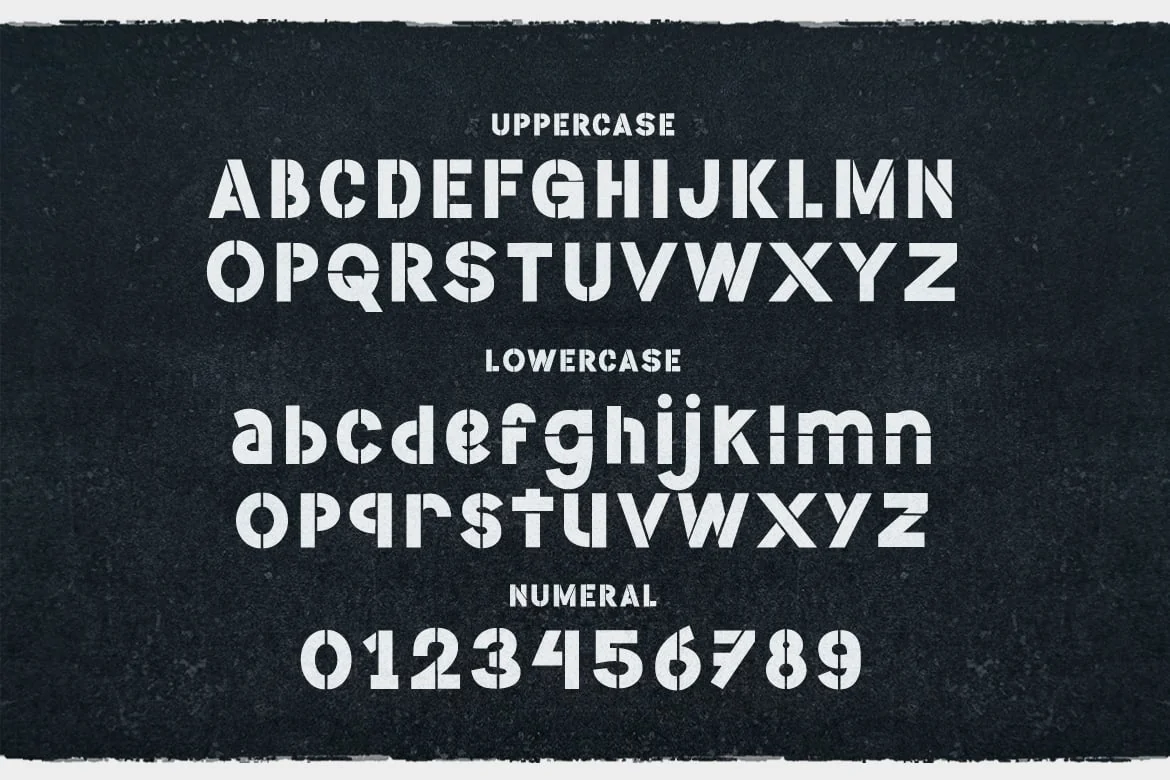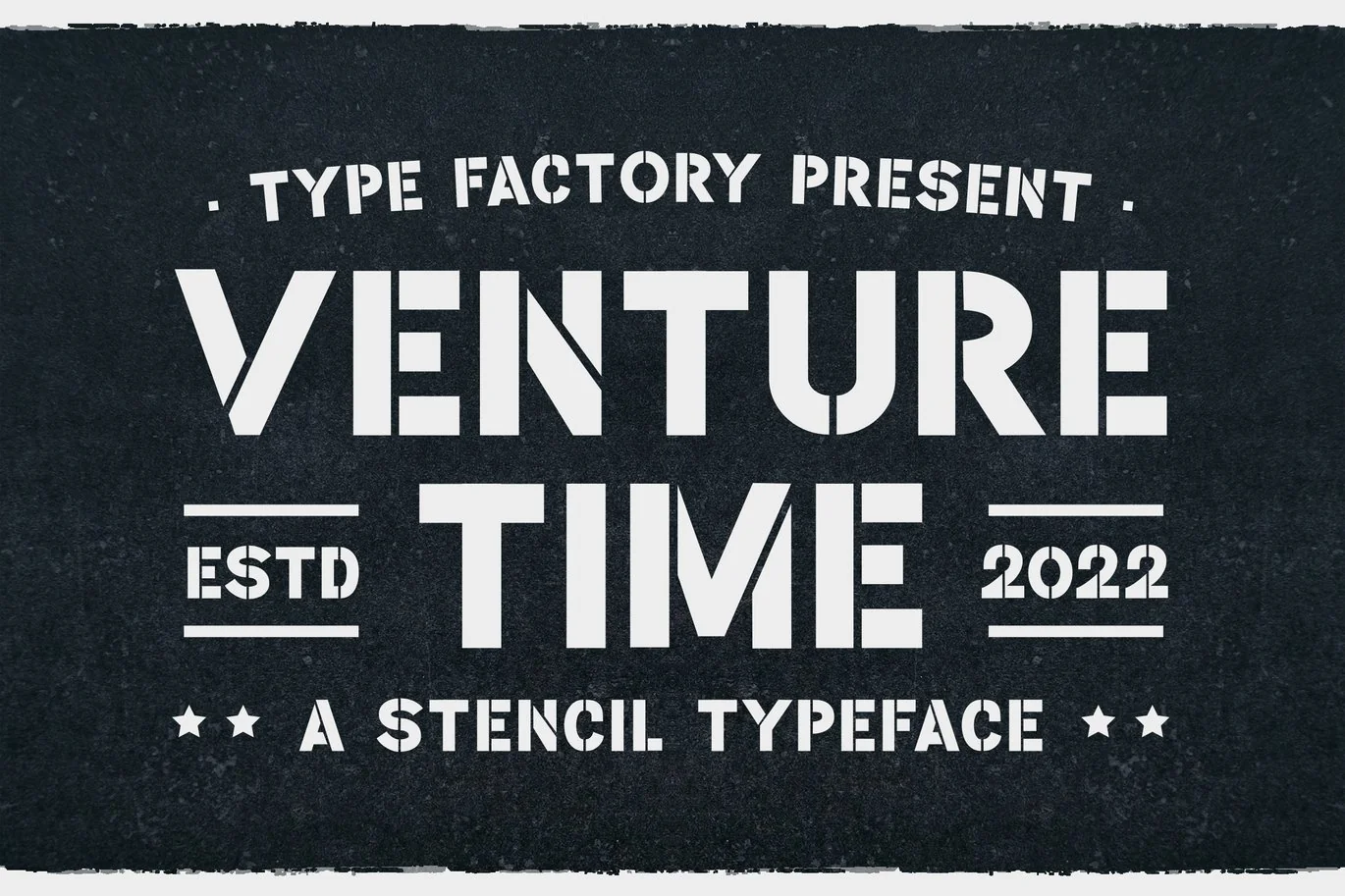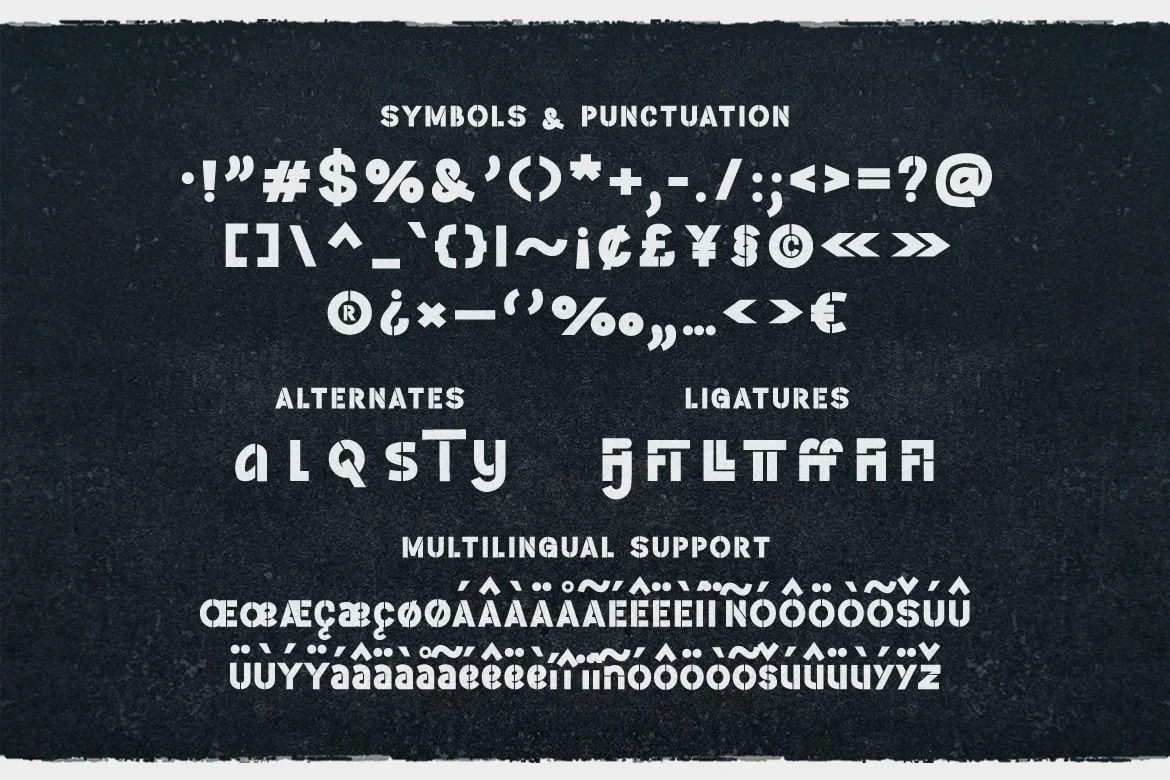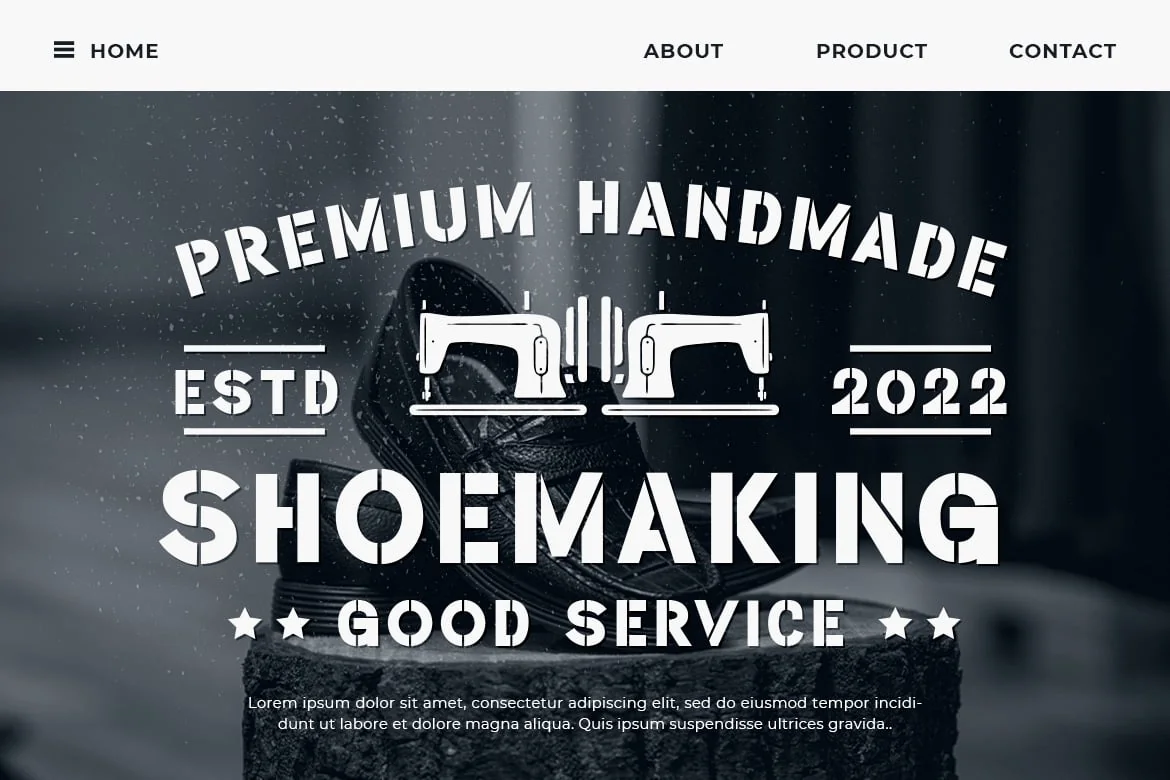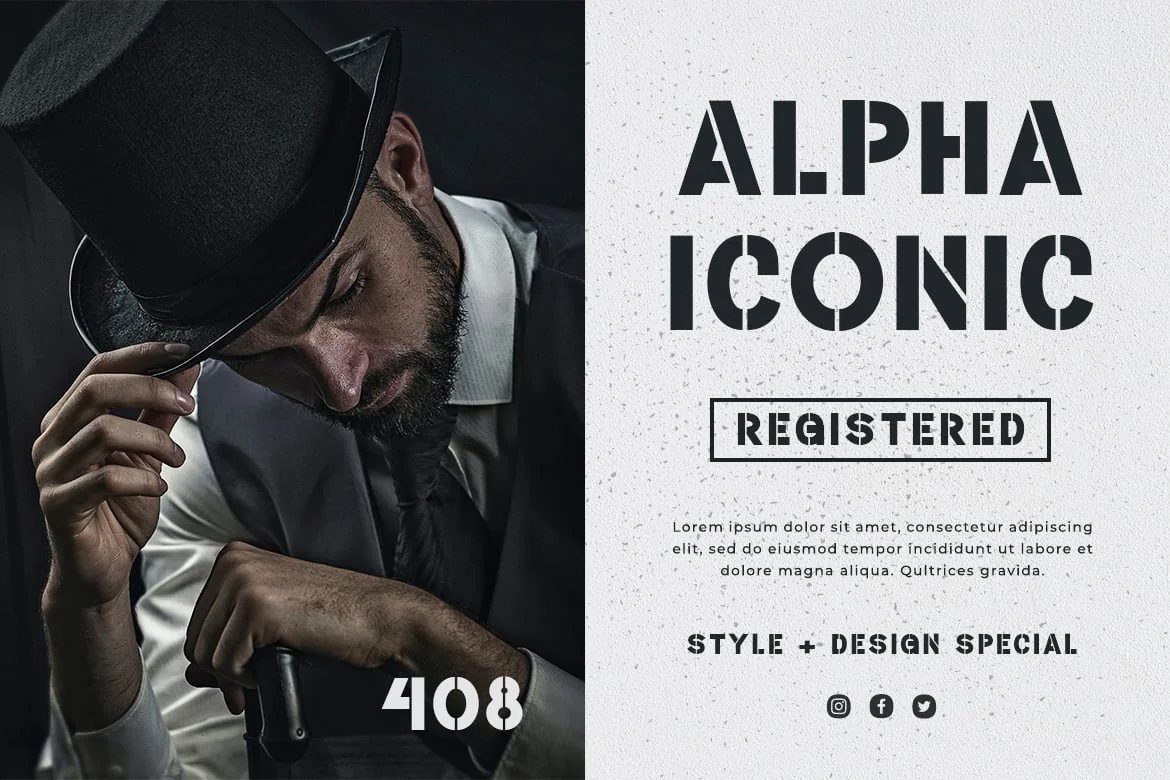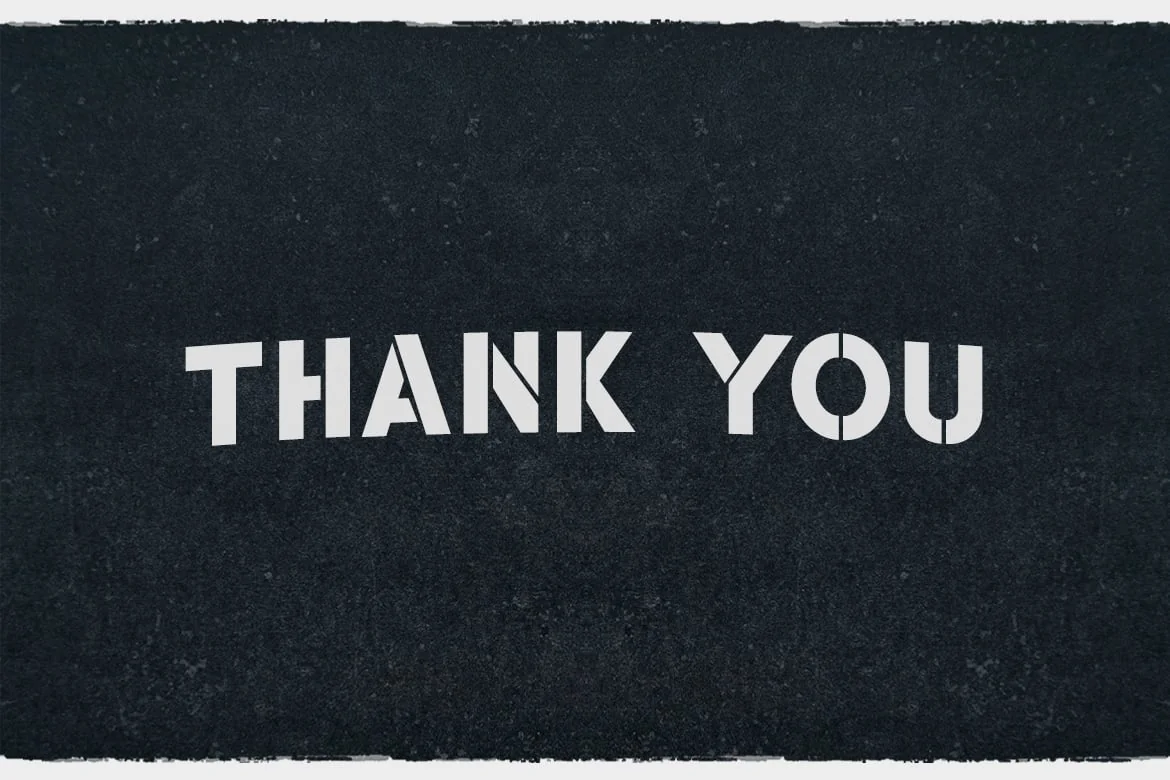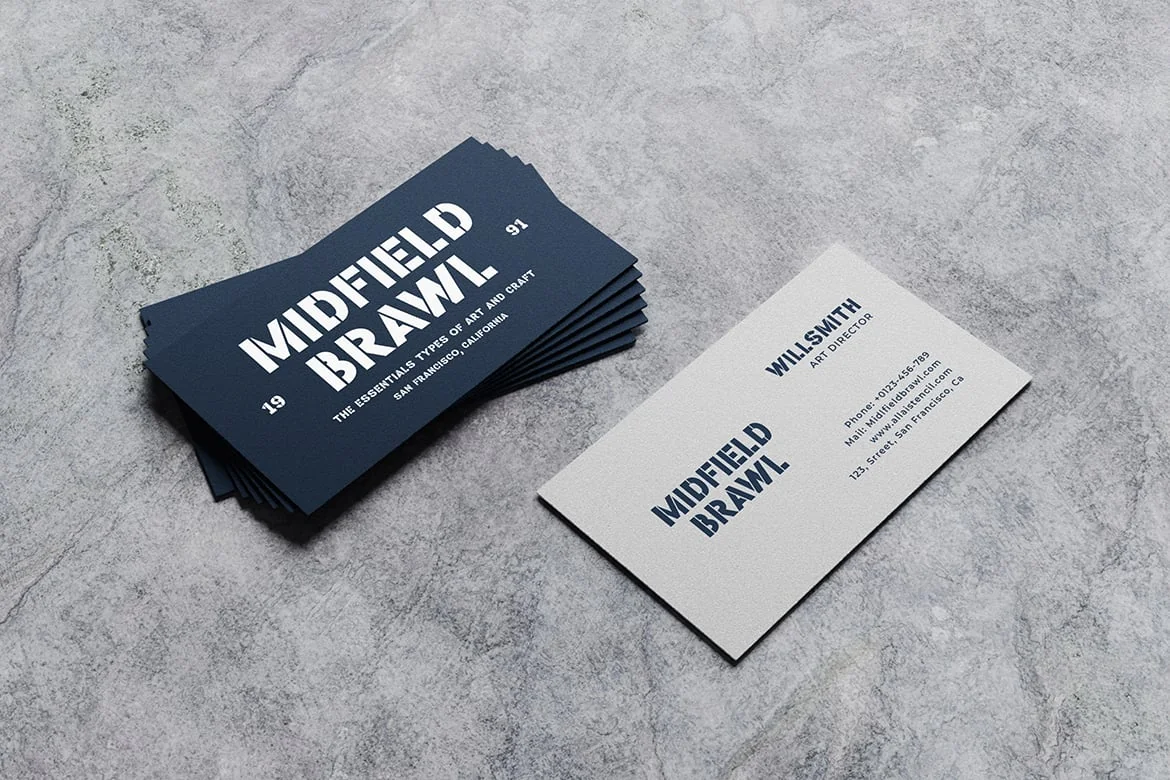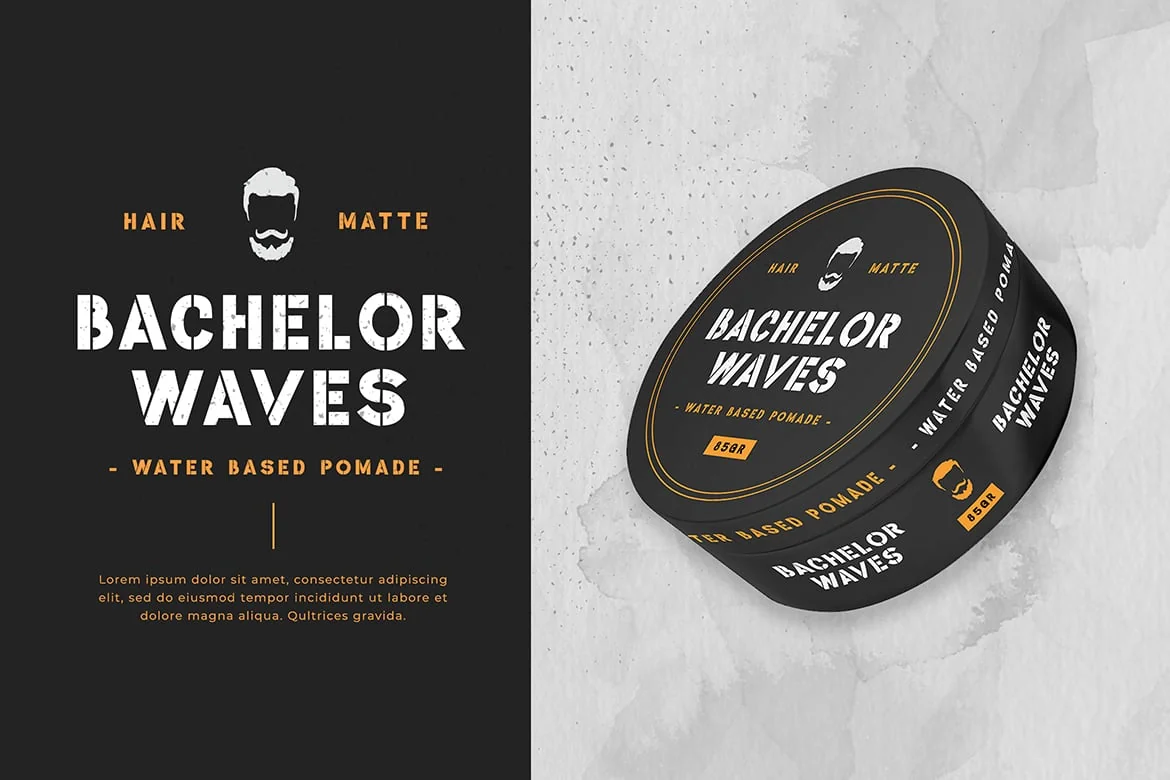
Venture Time – a Stencil Typeface
Venture Time is a modern and clean stencil font.
Its versatility and neat vibe will brighten up each of your designs. Have fun with this beautiful font and explore its endless variations.
Great for posters, logos, packaging, invitations, website titles, restaurant font, and more.